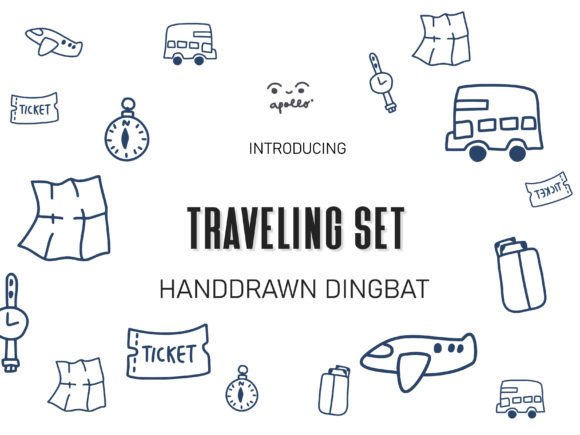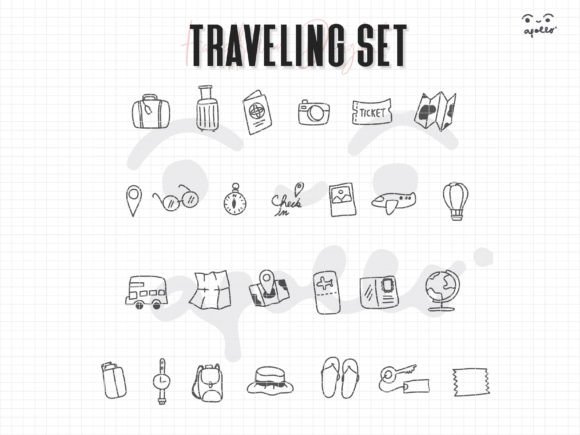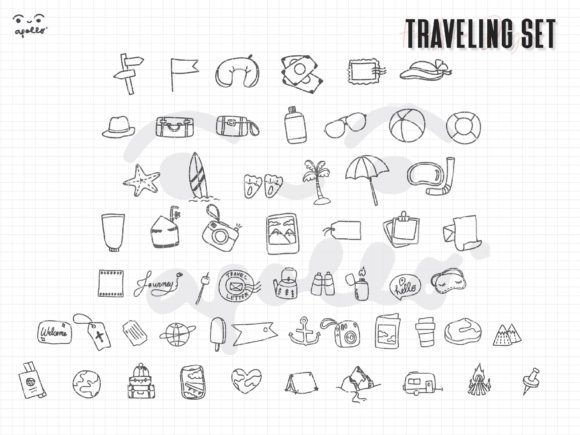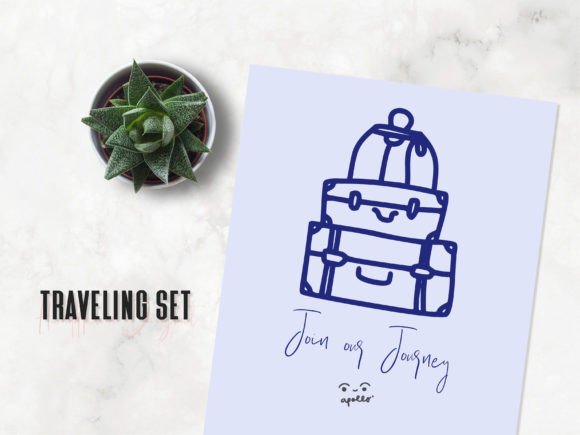
Traveling Set Font
TRAVELING SET FONT SPECIMEN
Traveling Set is not just any ordinary font; it is a font that exudes charm and warmth through its hand-drawn dingbats. Each character is meticulously crafted with care, bringing a unique and whimsical touch to any creative endeavor.
One of the key highlights of Traveling Set is its holiday and weekend trip-themed elements. These delightful illustrations include suitcases, airplanes, cameras, passports, maps, and other travel-related symbols. Whether you’re planning an invitation for a travel-themed party or creating wall art to inspire wanderlust, this font offers an array of adorable embellishments that will captivate and engage your audience.
The versatility of Traveling Set extends beyond invitations and wall art. It can also be used effectively in logo designs, particularly for beverage-related businesses. The font’s playful and joyful elements can be integrated seamlessly into logos, adding a touch of whimsy that appeals to customers and communicates a sense of adventure.
Additionally, if you’re looking to create captivating patterns, Traveling Set is an excellent choice. Its collection of charming dingbats can be repeated and arranged in various ways to form seamless patterns. These patterns can be used for stationery, textiles, packaging, and more, adding a delightful and playful aesthetic to your designs.
In summary, Traveling Set is a font that combines cuteness, adorability, and a sense of adventure. Its hand-drawn dingbats with holiday and weekend trip elements make it a perfect choice for a wide range of applications, including invitation embellishments, wall art, beverage logos, seamless patterns, and beyond. It’s a font that brings joy, whimsy, and a touch of wanderlust to your creative projects.